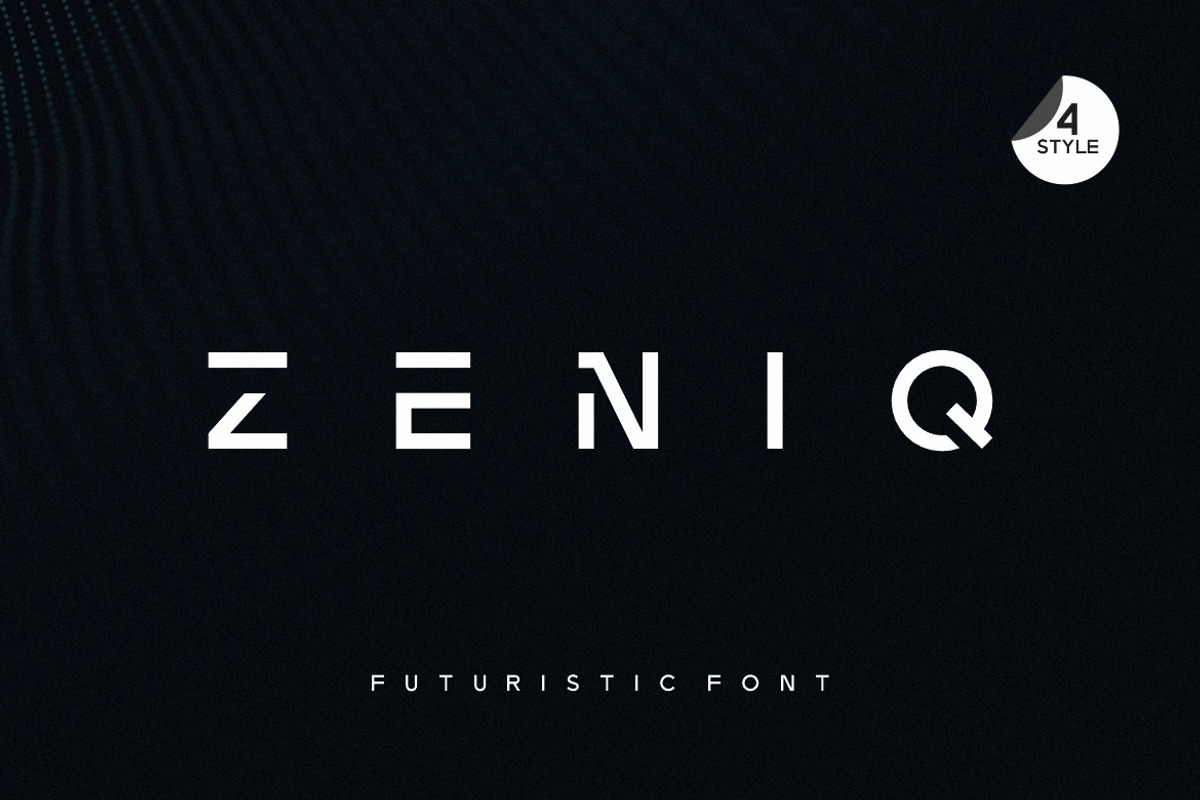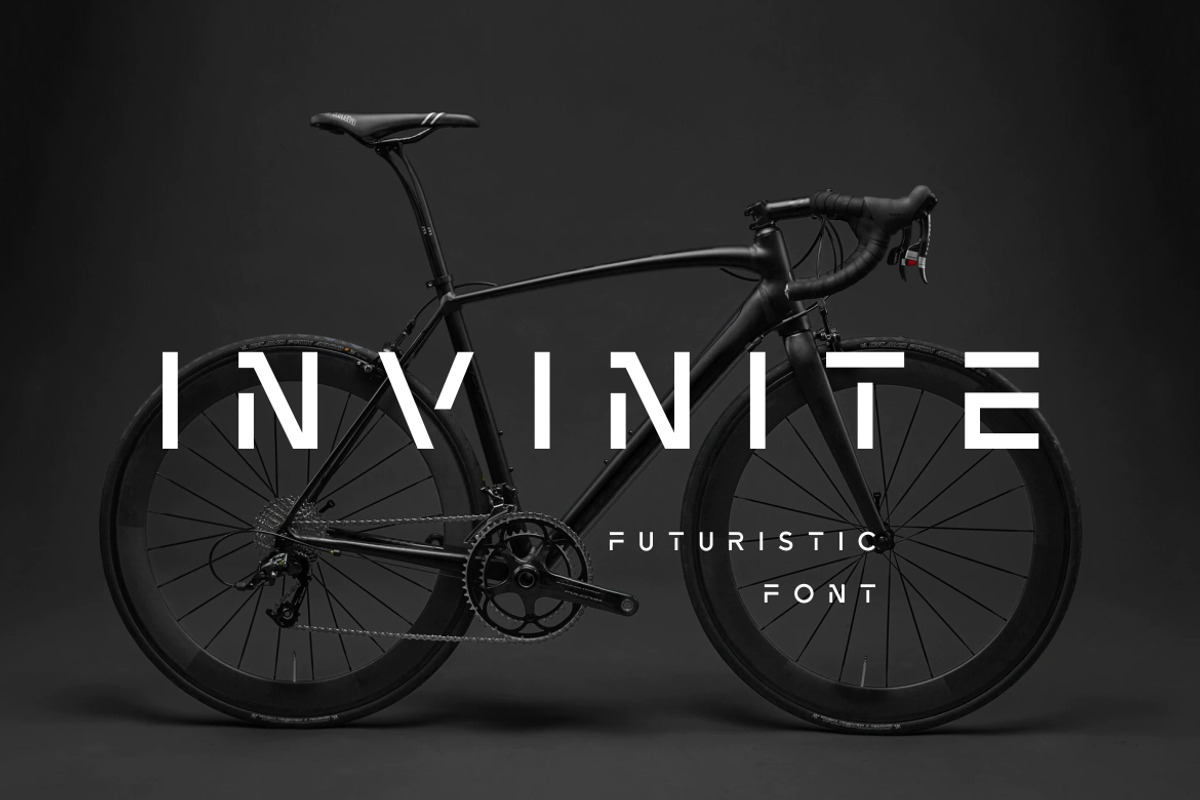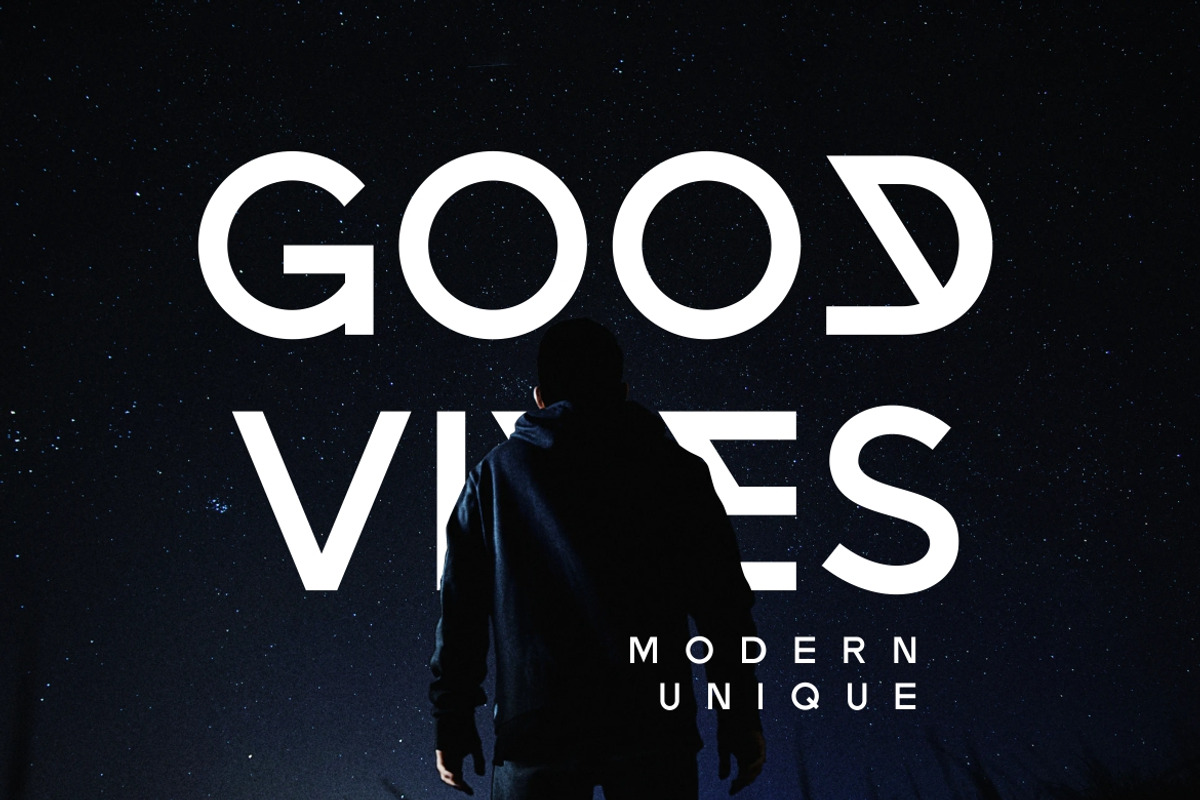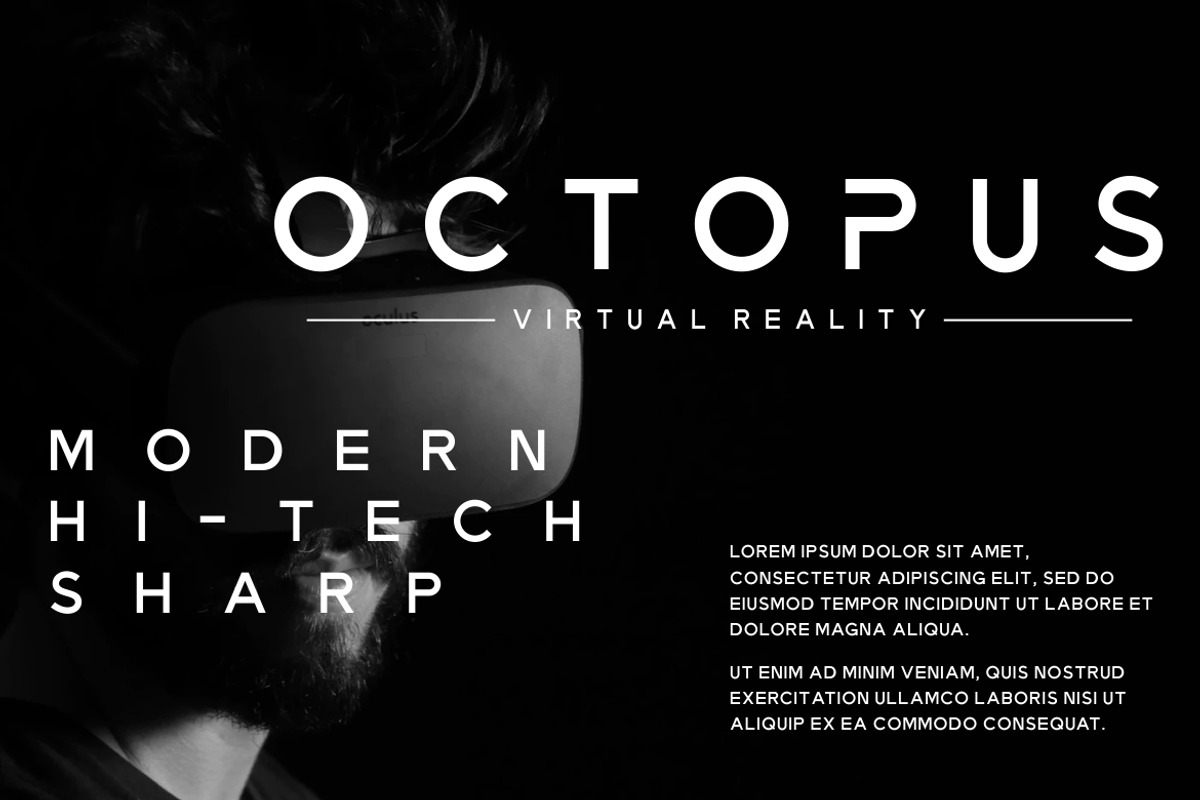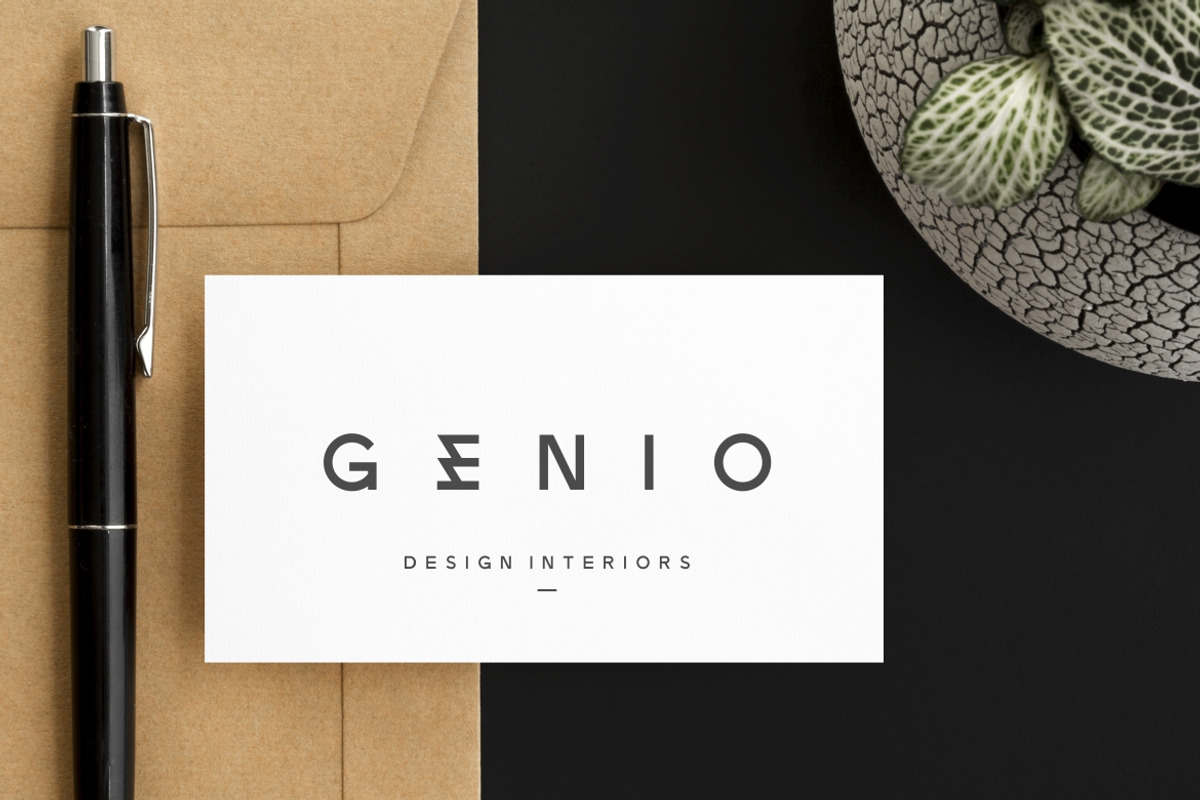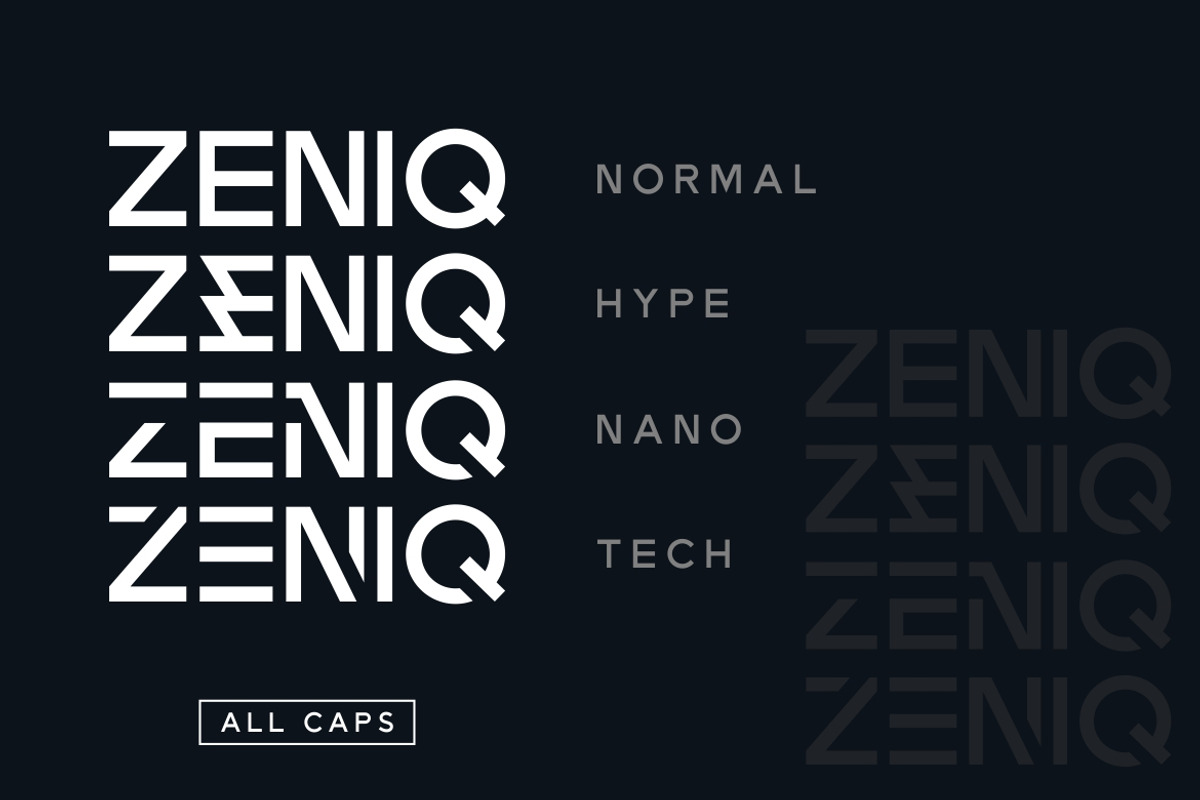
ZENIQ - Techno Font
Zeniq is a modern and clean technology font style designed ready to use in headlines, tags and quotes referring to technology, sci-fi, Hi Tech, modern vibes and more recent themes. The name of this font is connected to its unique and combination of its soft and sharp style. The name of this font is associated with sophistication and the combination of its clean and sharp style but still in the form of a clear and well-designed technical font. You can find this font in four different styles but still one frequency, you can even combine all of them into one whole word with different styles. However, please note that this font is only in uppercase letters, no lowercase letters because the main purpose of this font is for logo and brand identity fonts and similar projects.
• All Uppercase ( No Lowercase ) • Number • Punctuation • Multilingual Supports